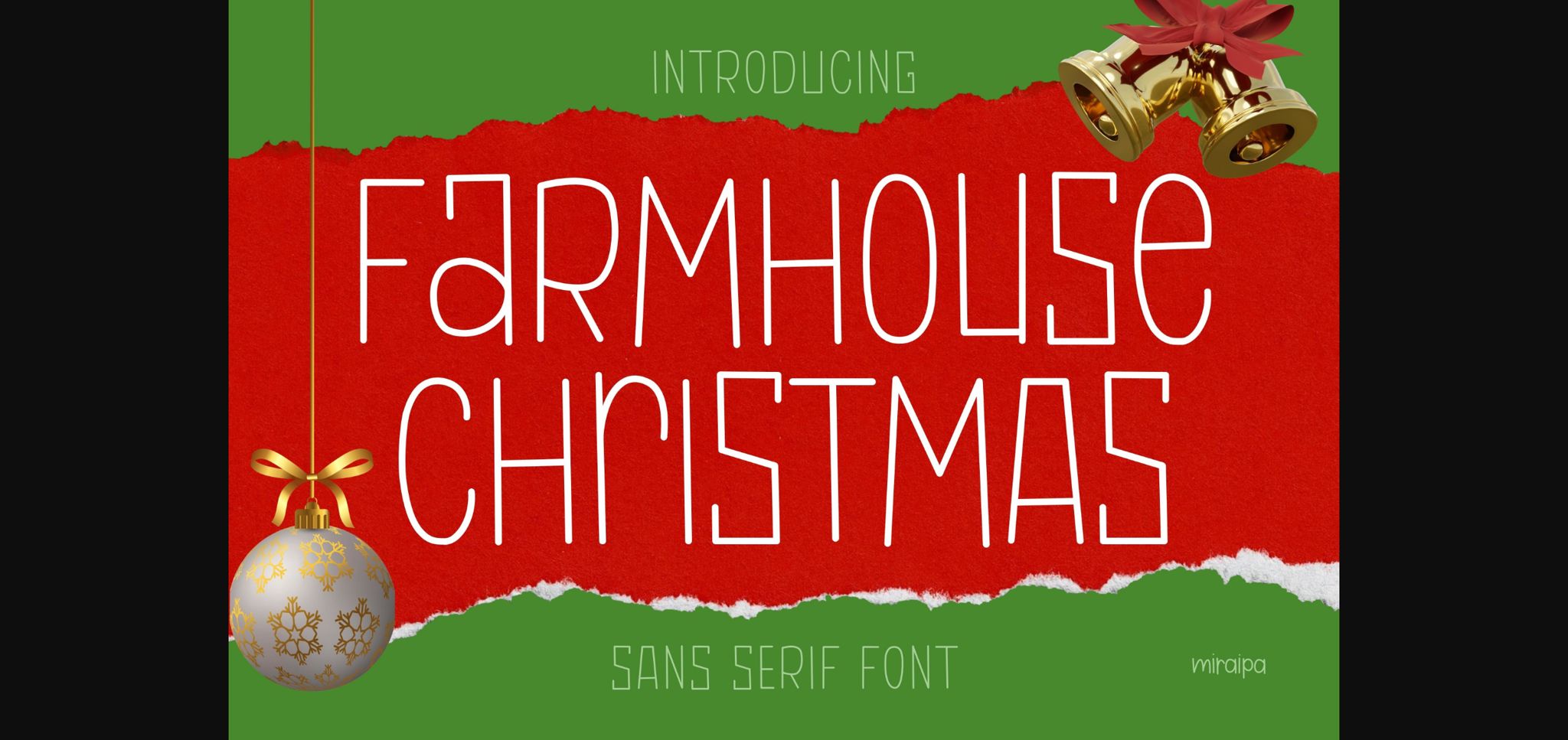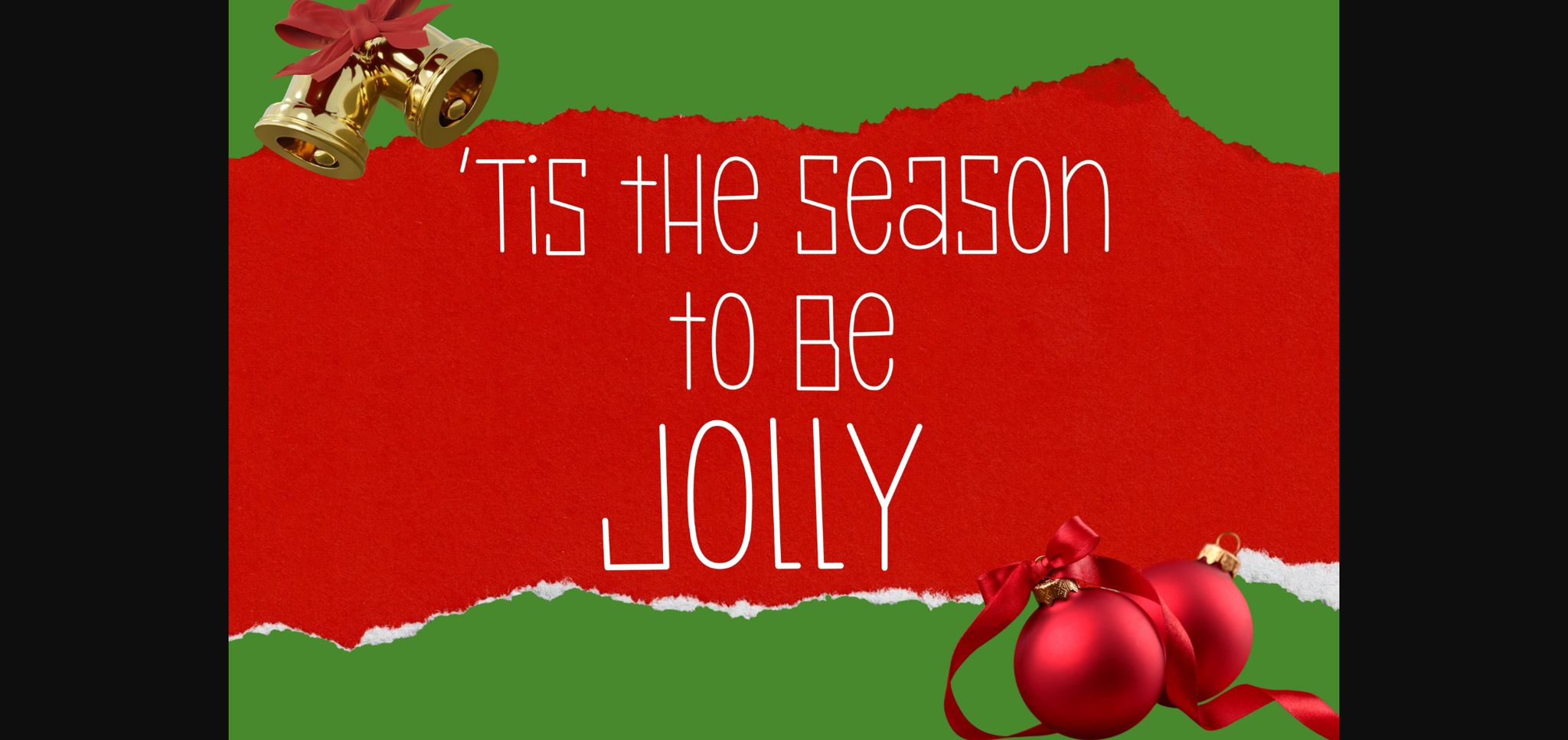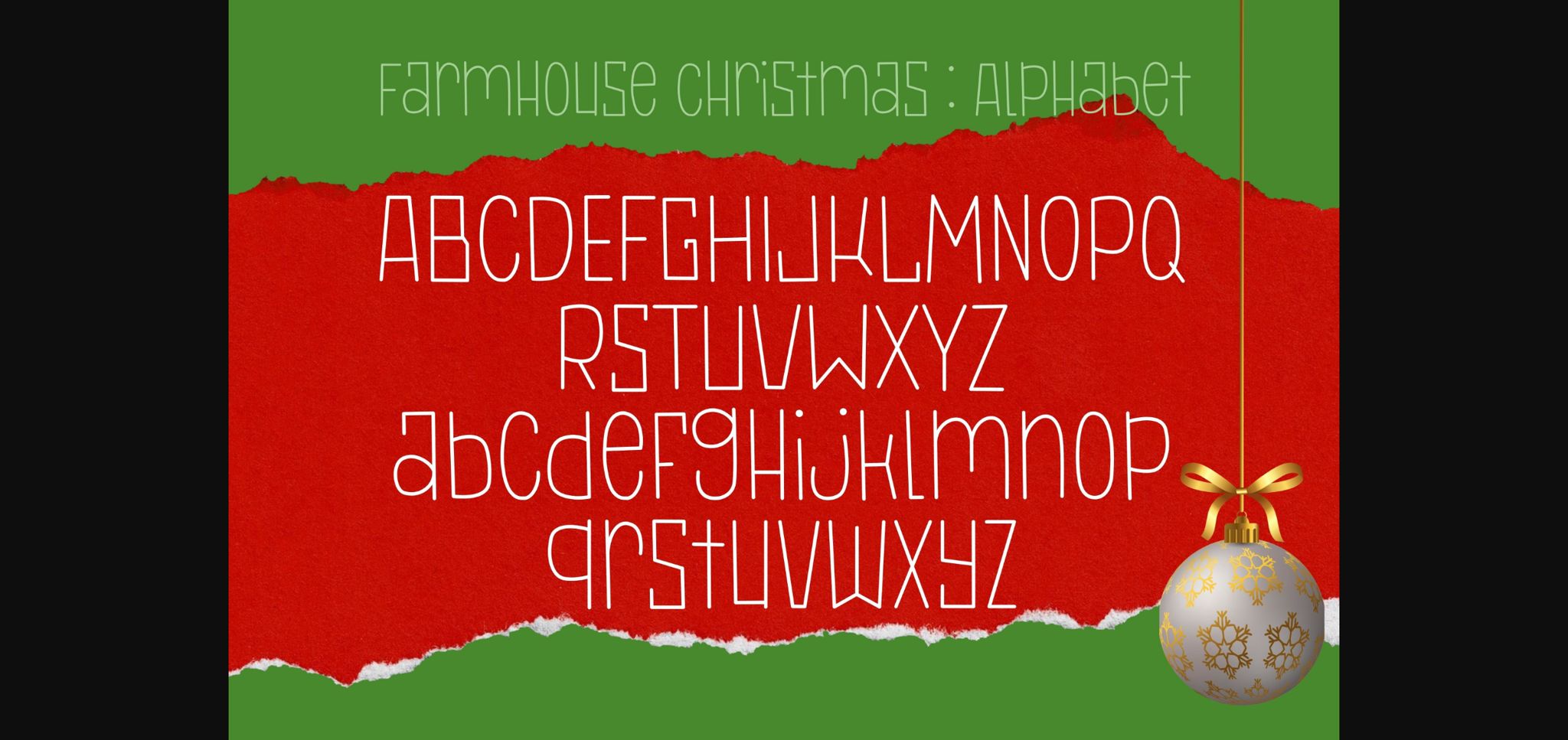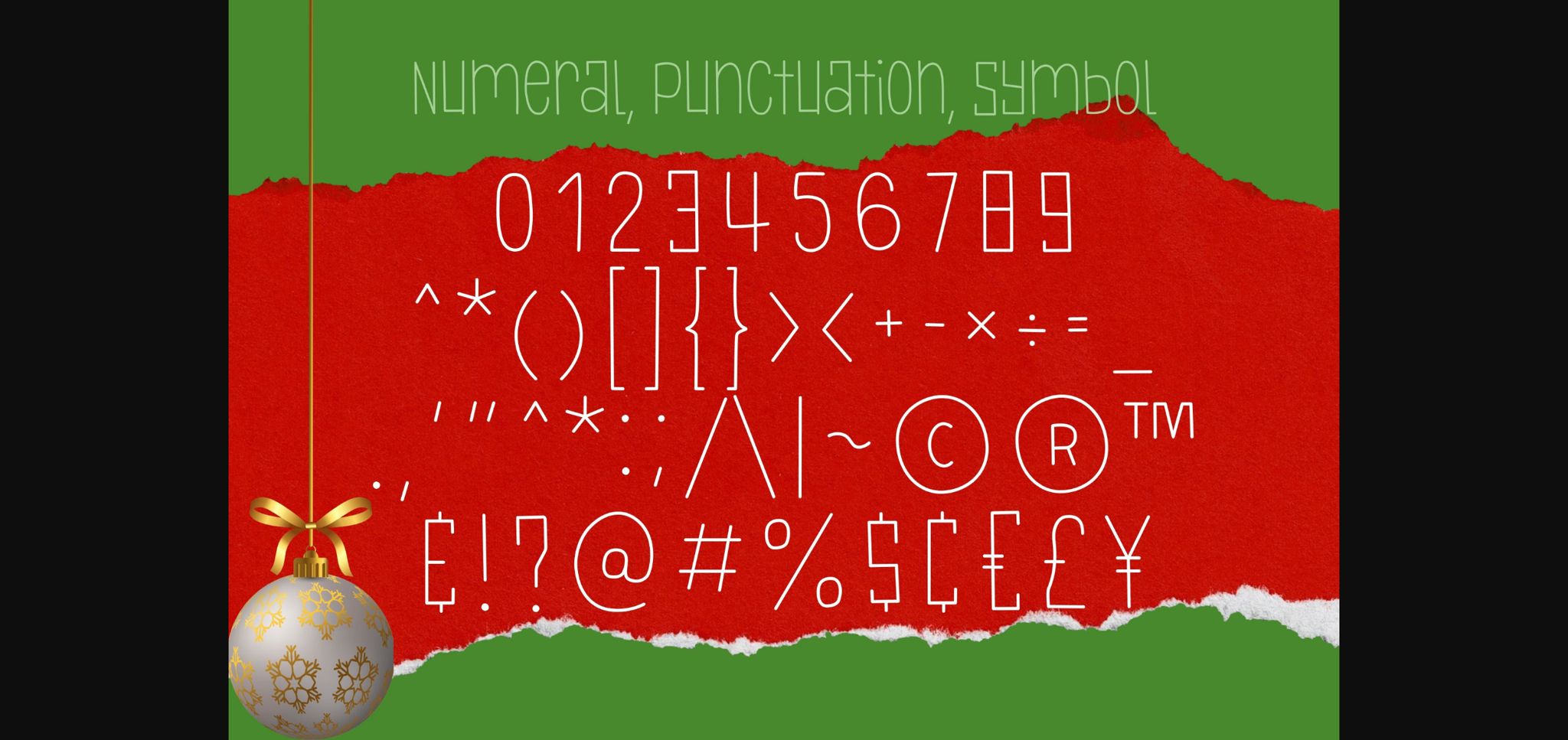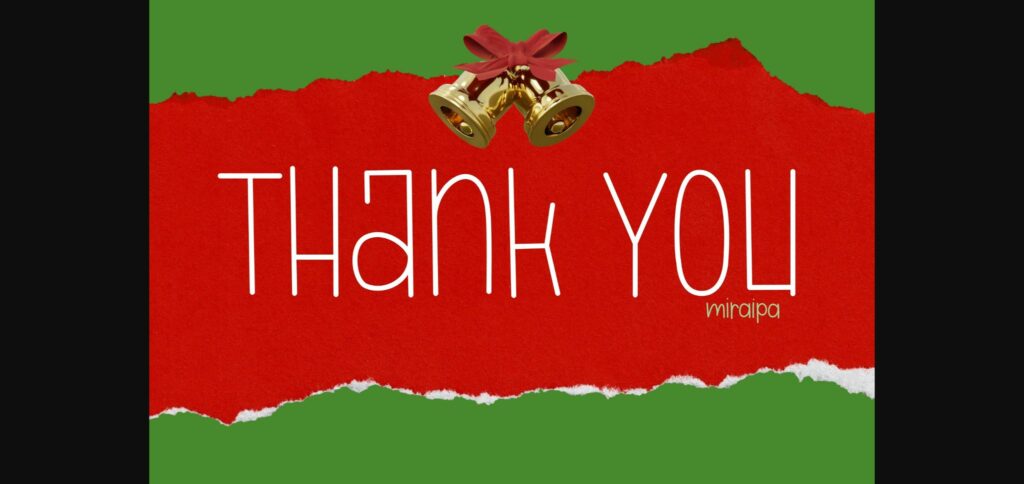
HomeSans Serif FontsFarmhouse Christmas Font Sans Serif Fonts Farmhouse Christmas Font FacebookXPinterestWhatsApp 1 of 7 ... Farmhouse Christmas Font Poster 2... Farmhouse Christmas Font Poster 3... Farmhouse Christmas Font Poster 4... Farmhouse Christmas Font Poster 5... Farmhouse Christmas Font Poster 6... Farmhouse Christmas Font Poster 7... About Farmhouse Christmas Font Farmhouse Christmas is a fun and friendly handwritten sans serif font. Incredibly versatile, this font is suitable for a wide spectrum of applications. DOWNLOAD NOW People also explored Archibald Sunrise Font Kelium Font Reautiful Storie Font Super Plaid Font Rollink Script Font Yellow Submarine Font Siletu Font Bold Font 348 0 TagsFarmhouse Christmas Font Previous articleManopidi FontNext articleTerancio Font LEAVE A REPLY Cancel reply Comment: Please enter your comment! Name:* Please enter your name here Email:* You have entered an incorrect email address! Please enter your email address here Website: Save my name, email, and website in this browser for the next time I comment. Personal Use Free Baby Magnolia Personal Use Free Read more about this font Arnprior Personal Use Free Read more about this font Stone Cold Personal Use Free Read more about this font Cline Personal Use Free Read more about this font BLOG Free vs Paid Fonts: Why Investing in Premium Fonts Is Worth It Free vs Paid Fonts: Why Premium Fonts Are Worth It in 2025 The debate of free vs paid fonts continues in the design world. While... Elegant Wedding Invitation Fonts – Handwritten & Script Fonts Best Fonts for T-Shirt Design – Top 2025 Picks Best Fonts for YouTube Videos: Make Your Thumbnails Stand Out